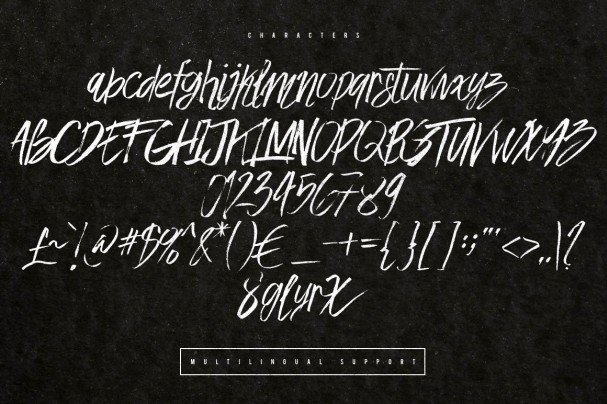
Easy Brush Font
Easy Brush Font is known for its script typeface and is commonly used for business purposes. It is also available on Google Fonts and is also referred to as the Smooth Brush Font.
The primary is a font this is created with the useful content of the use of gatsby style font. He took the idea from the start. This font is used for t-shirt printing and emblem designing abilities.